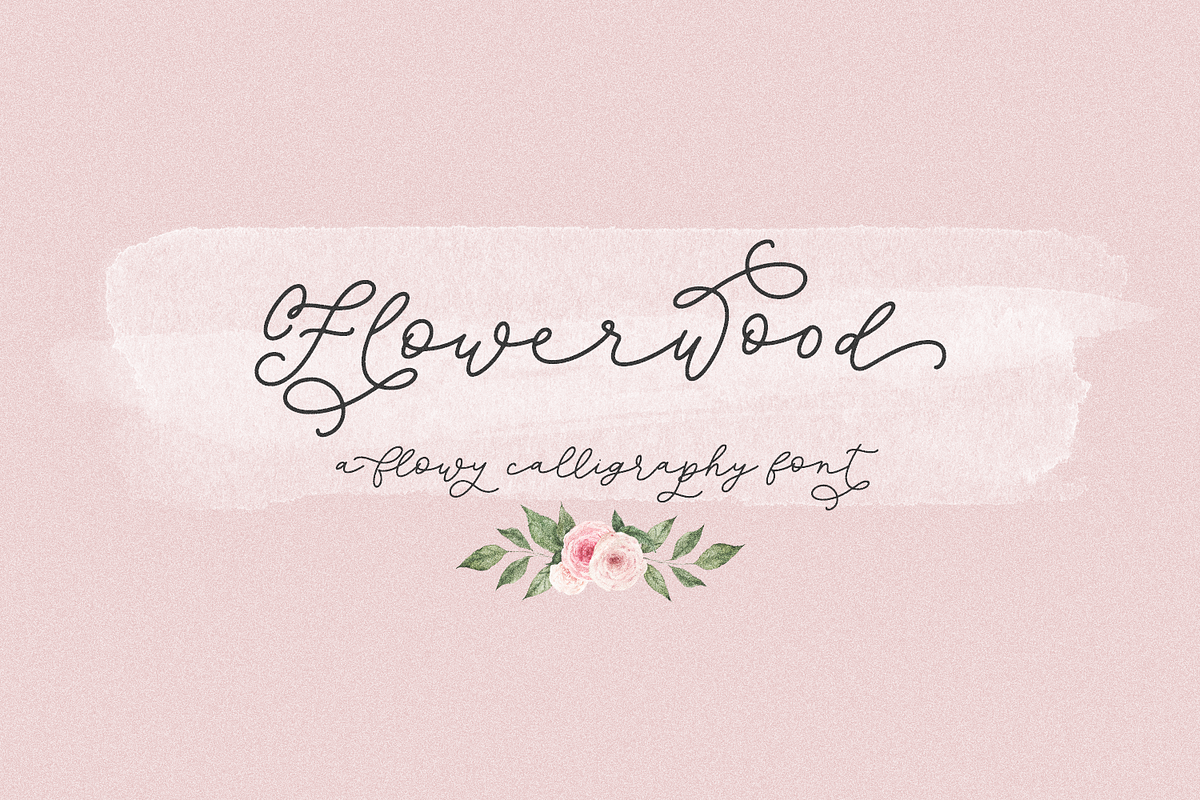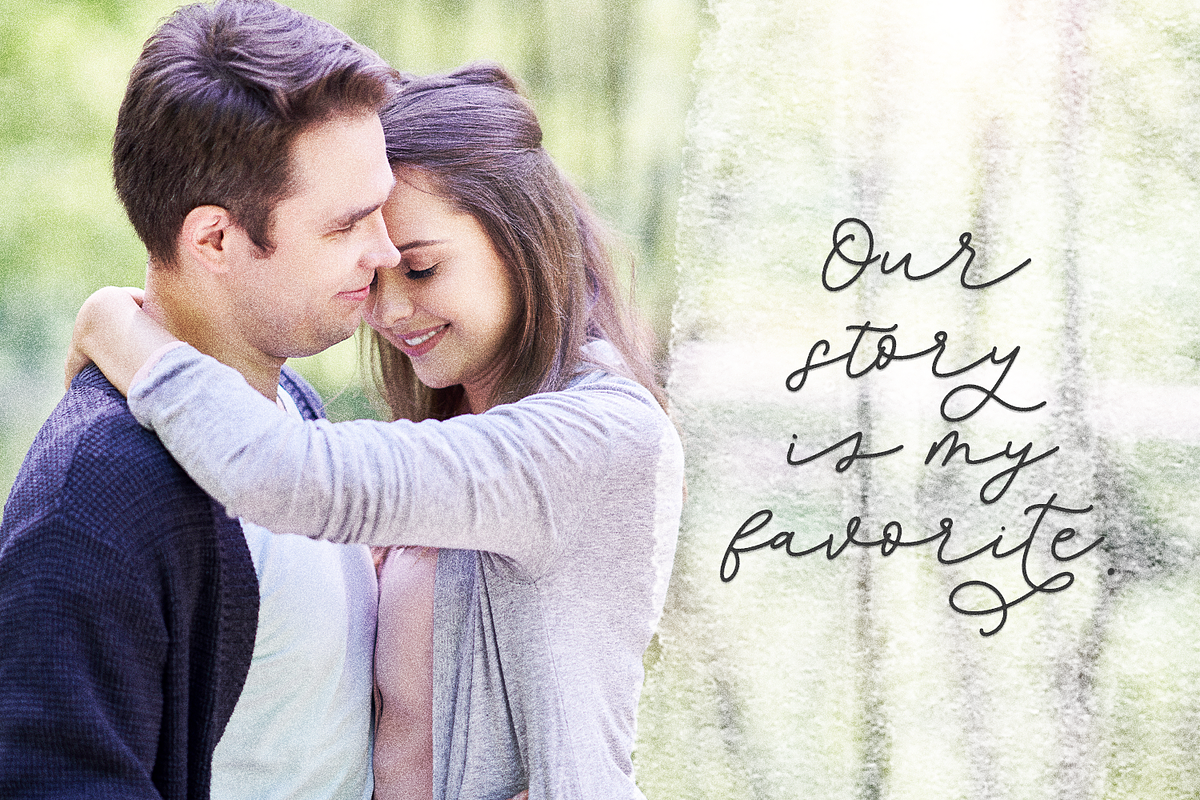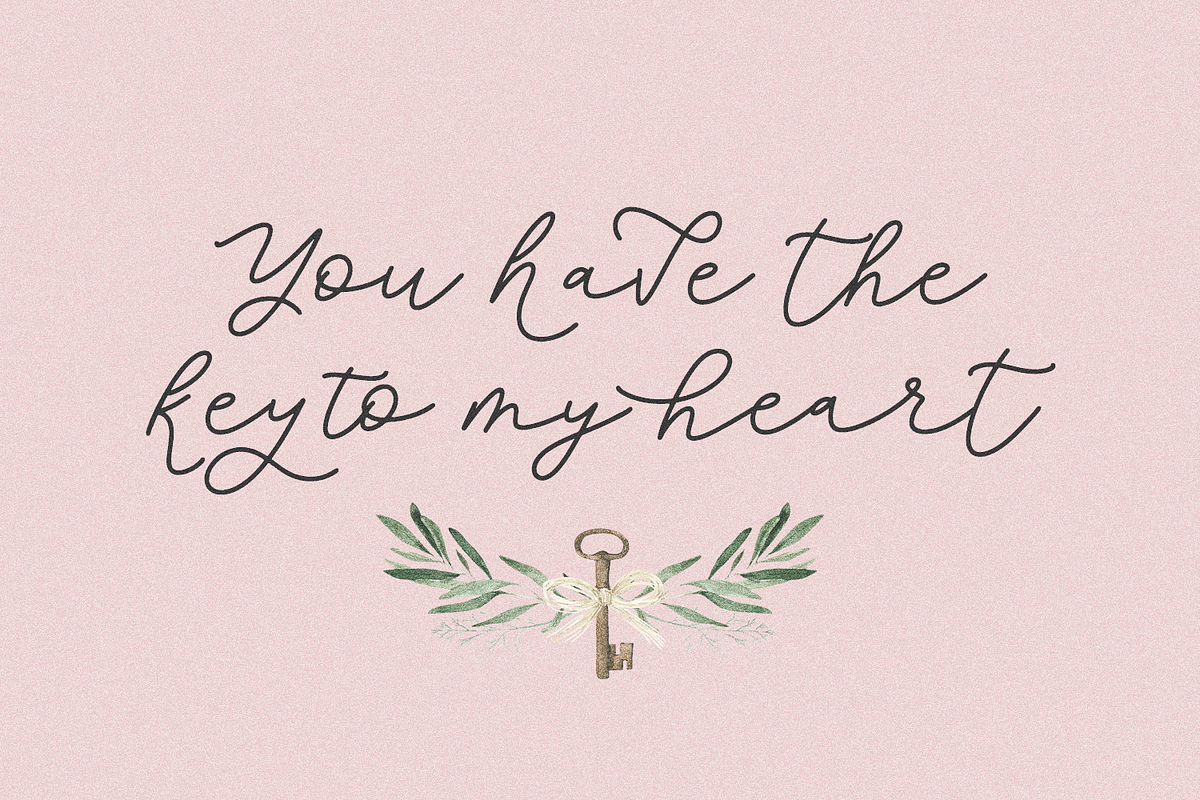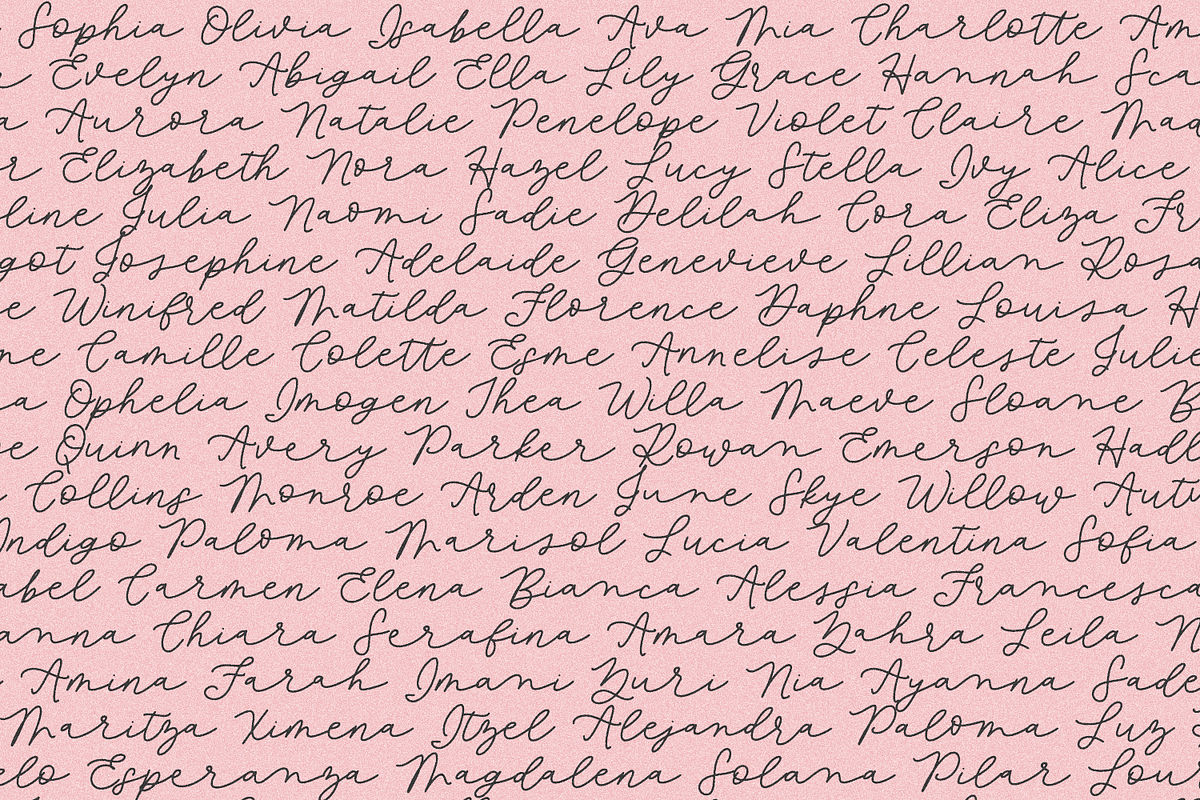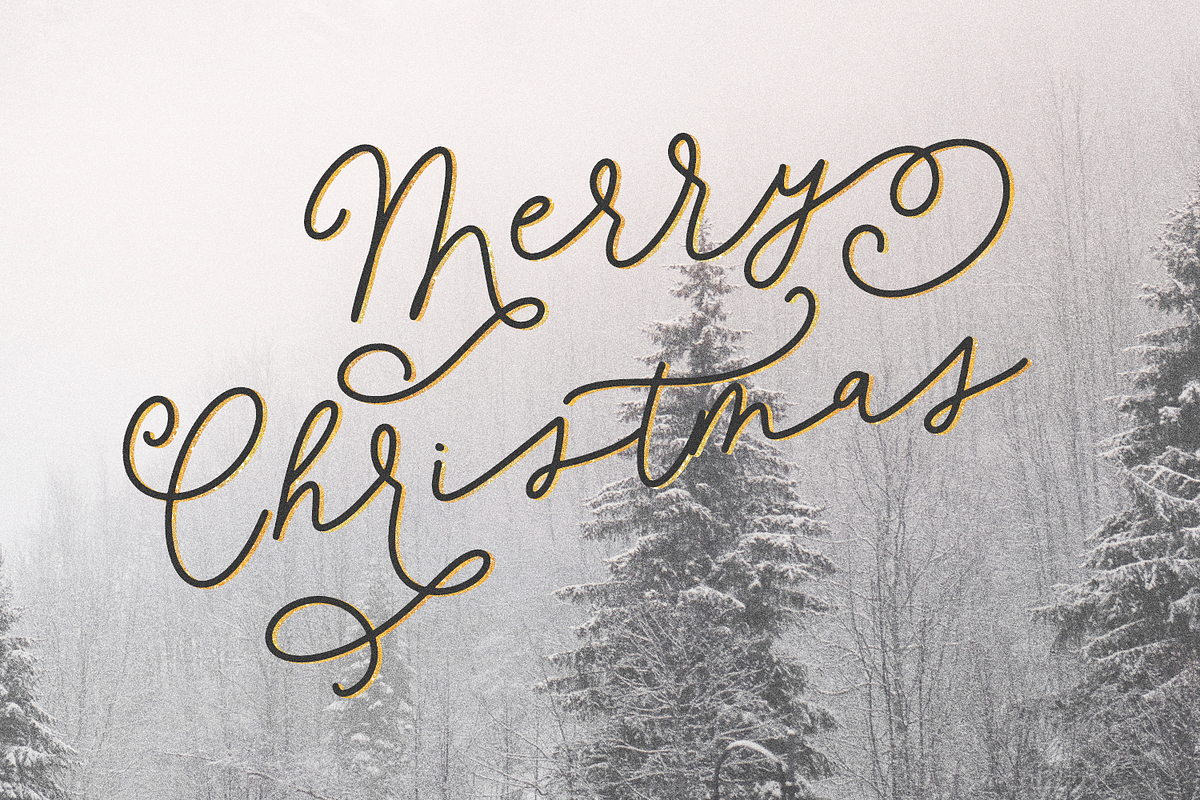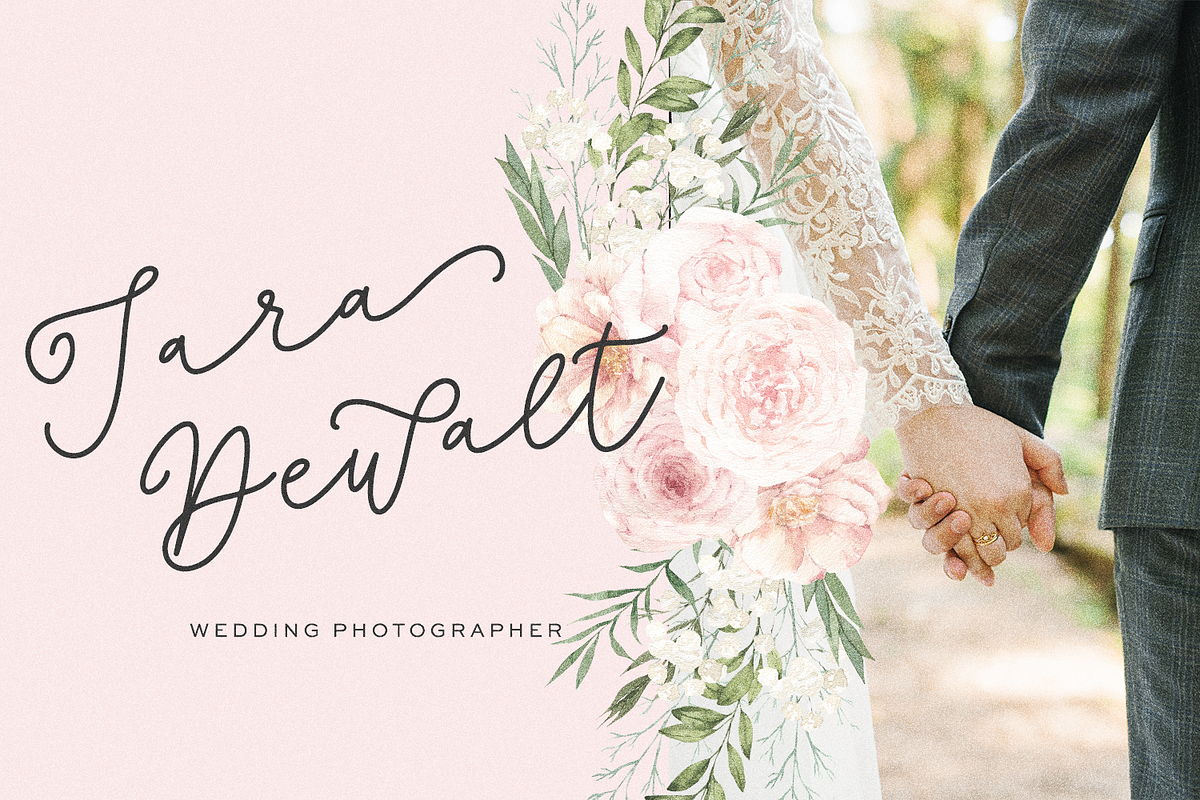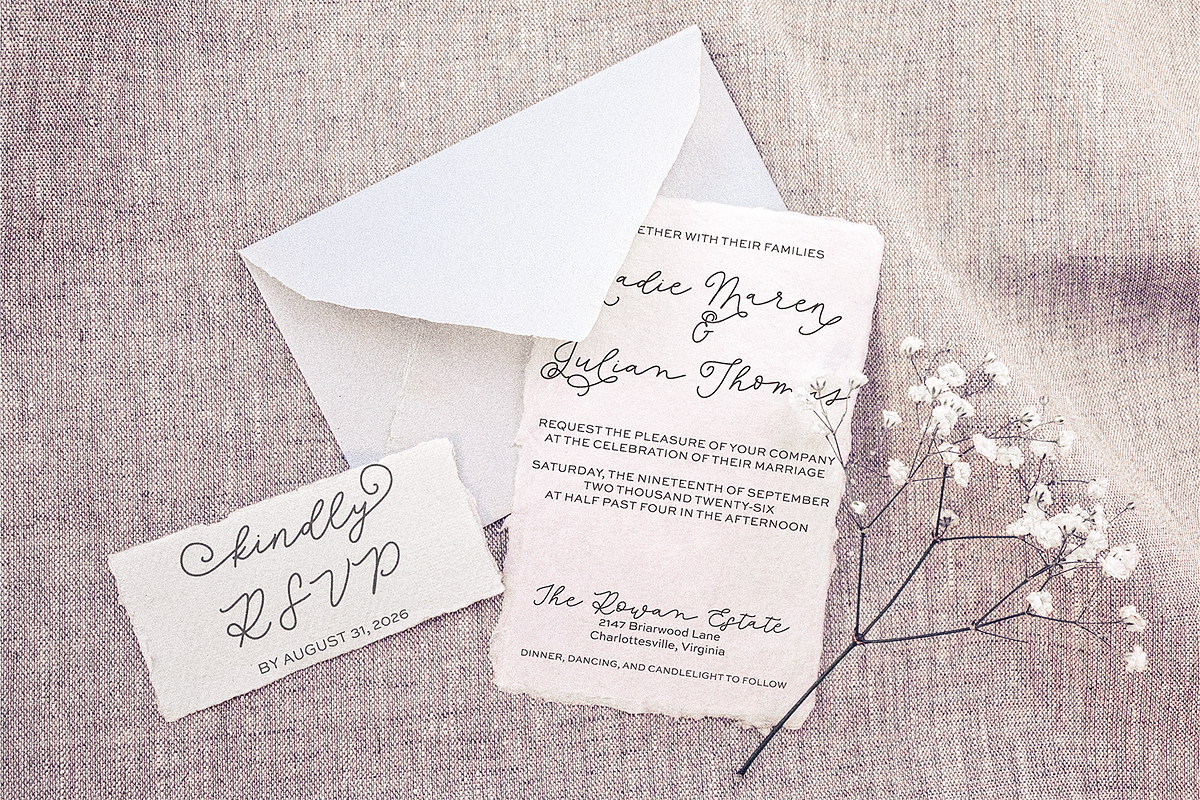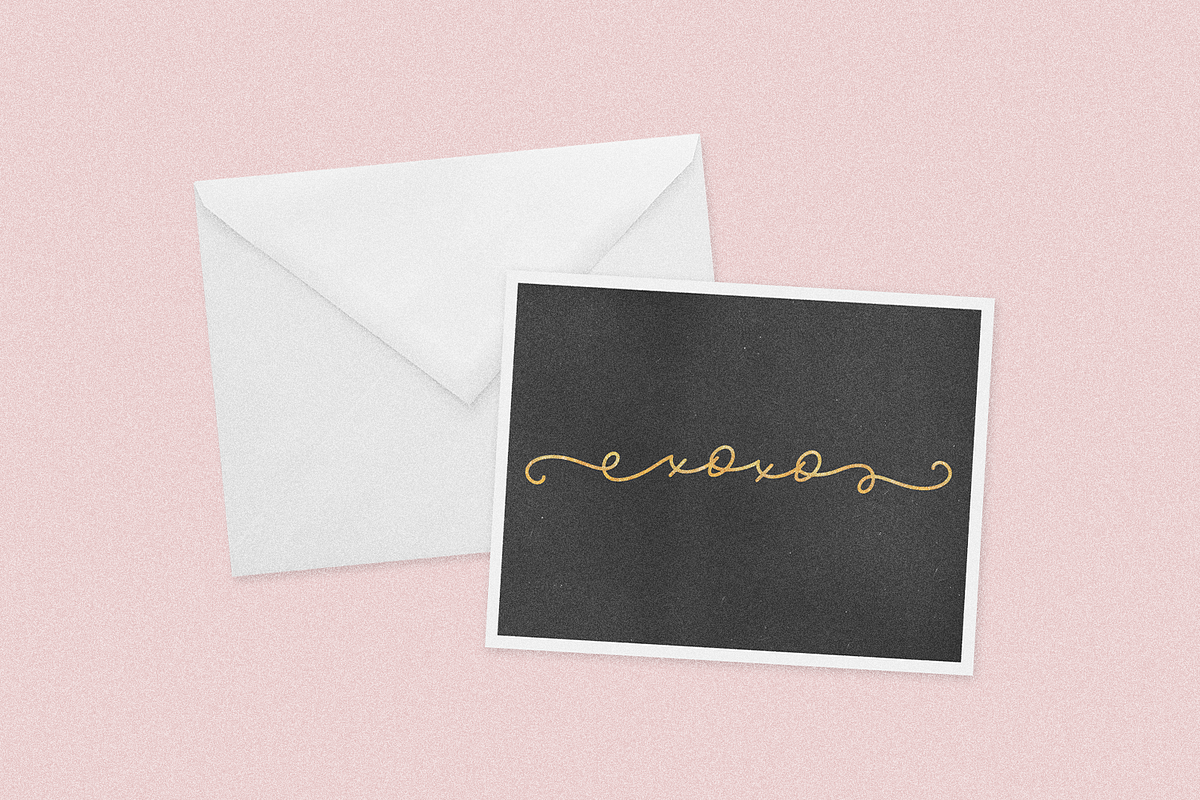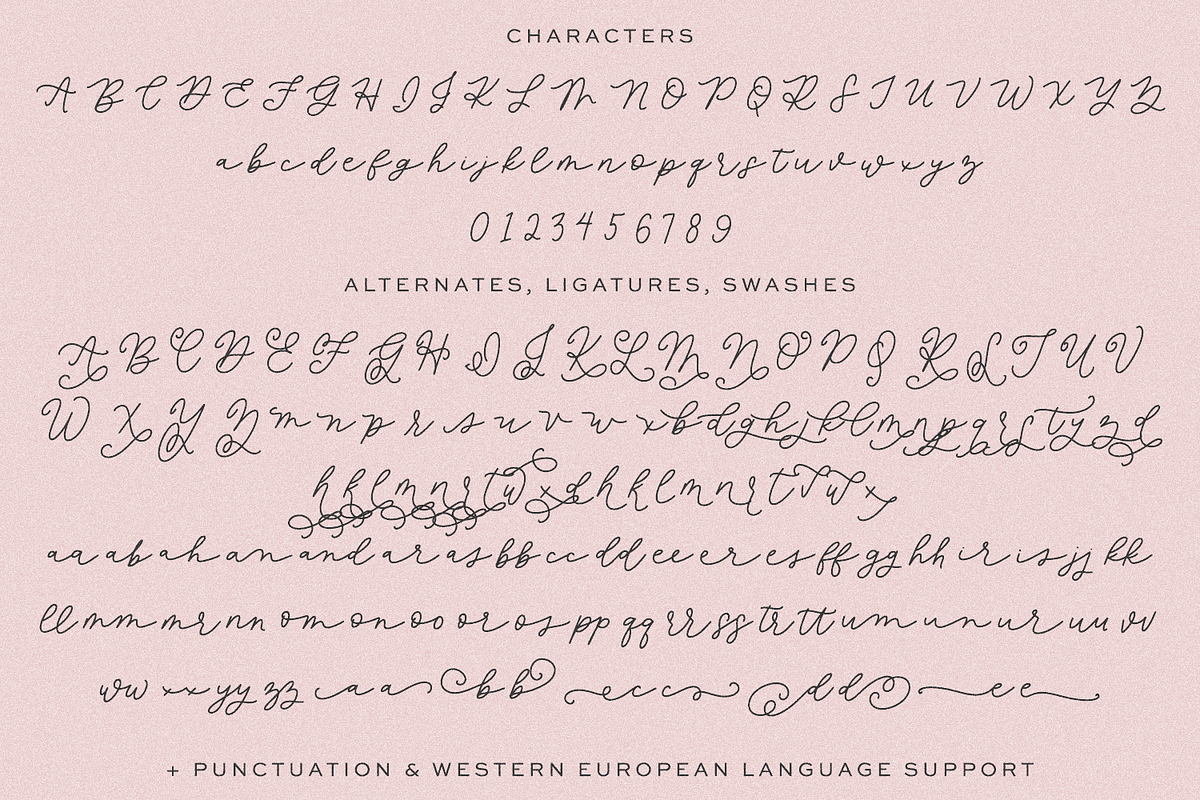
Flowerwood Script Font
Introducing Flowerwood, a flowy calligraphy font. Flowerwood Script will add a handwritten touch to any project you use it for, including wedding invitations, quote graphics, elegant paper products, love notes, or more. Flowerwood features many extras, like flourished characters and lowercase left & right swashes.
Flowerwood includes:
- full upper + lowercase characters
- numbers + punctuation
- 337 alternate characters, including flourished letters & a selection of left & right swashes
- 44 ligatures - aa, ab, ah, an, and, ar, as, bb, cc, dd, ee, er, es, ff, gg, hh, ir, is, jj, kk, ll, mm, nr, nn, om, on, oo, or, os, pp, qq, rr, ss, tr, tt, um, un, ur, uu, vv, ww, xx, yy, zz